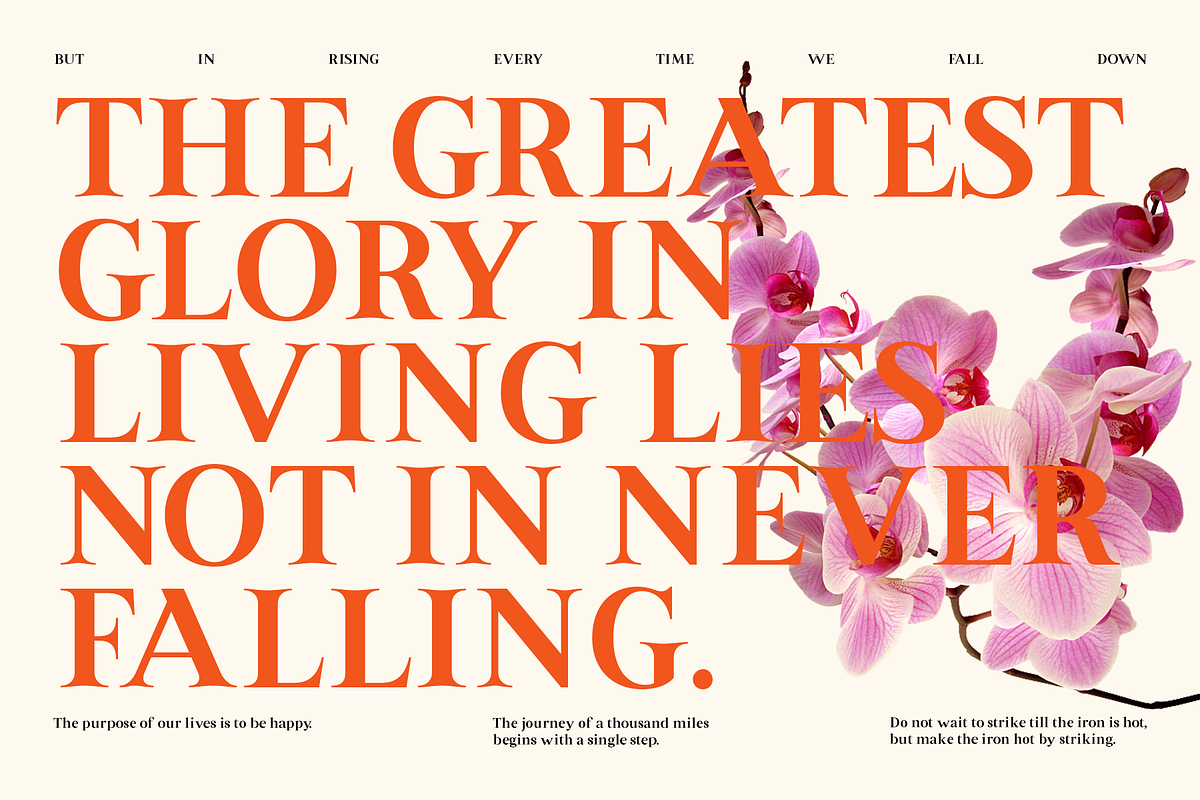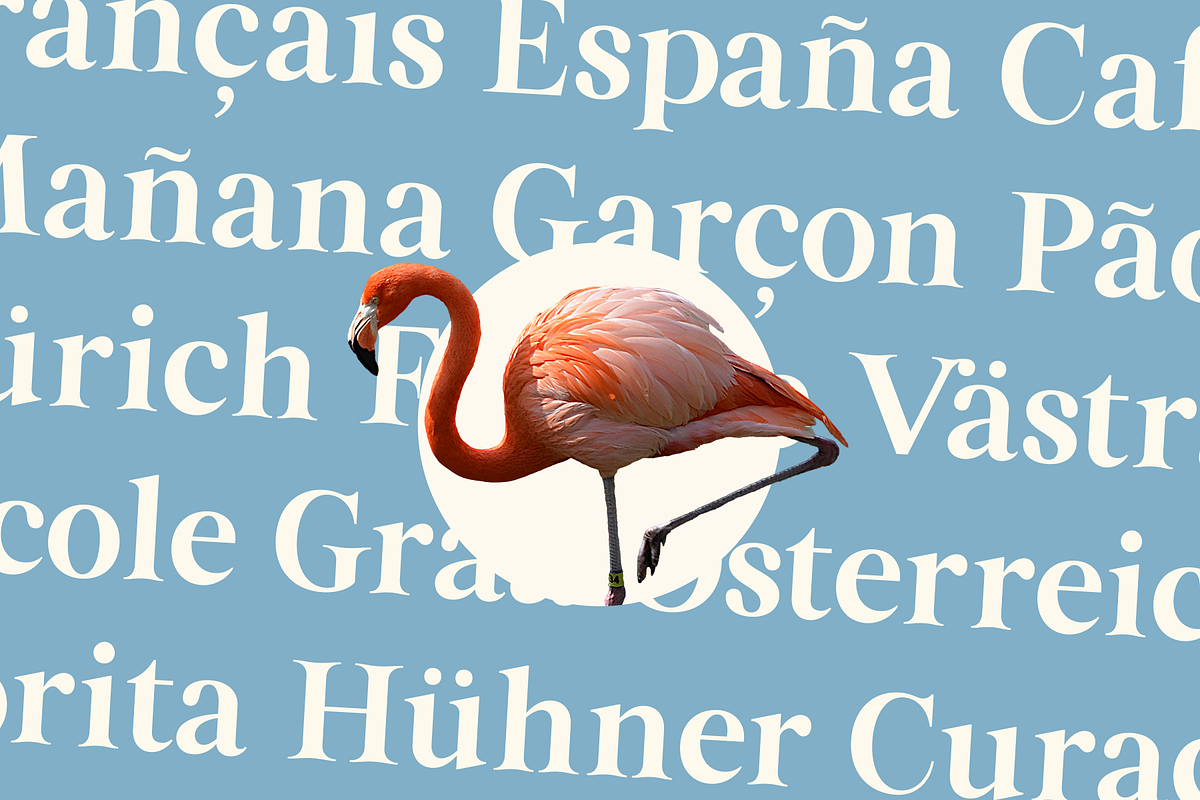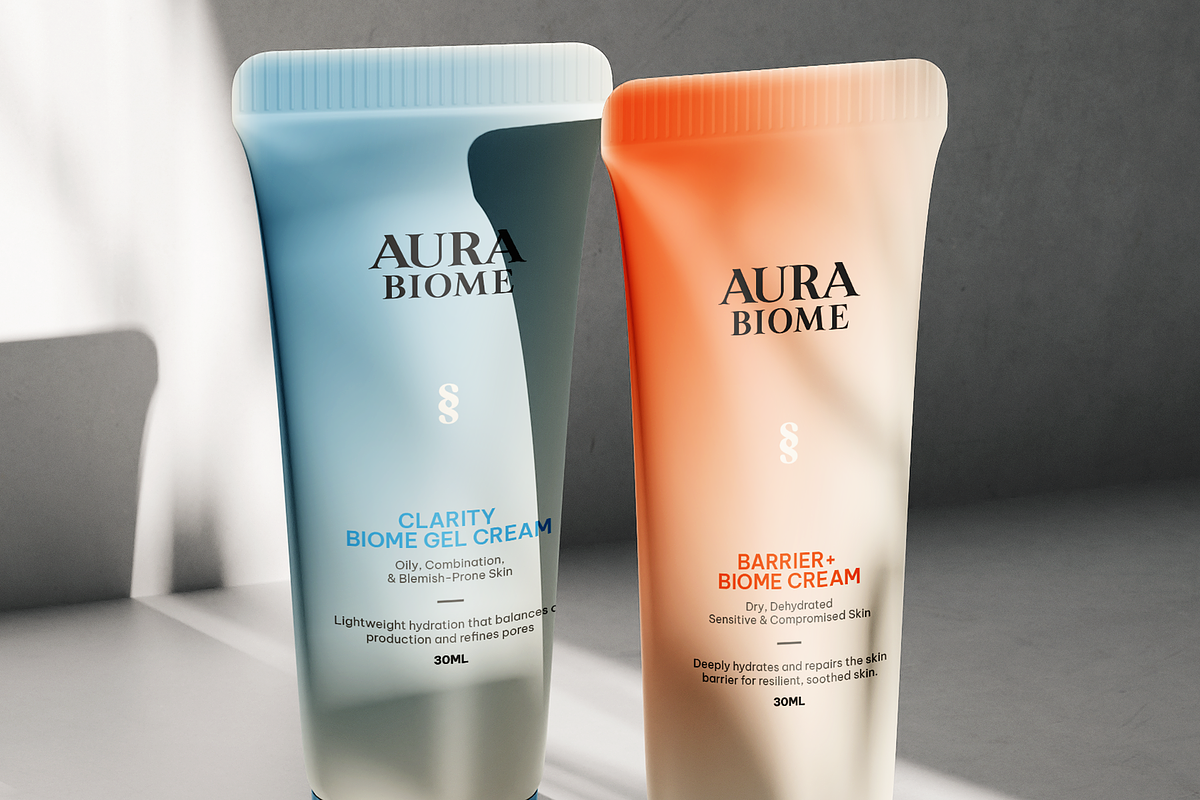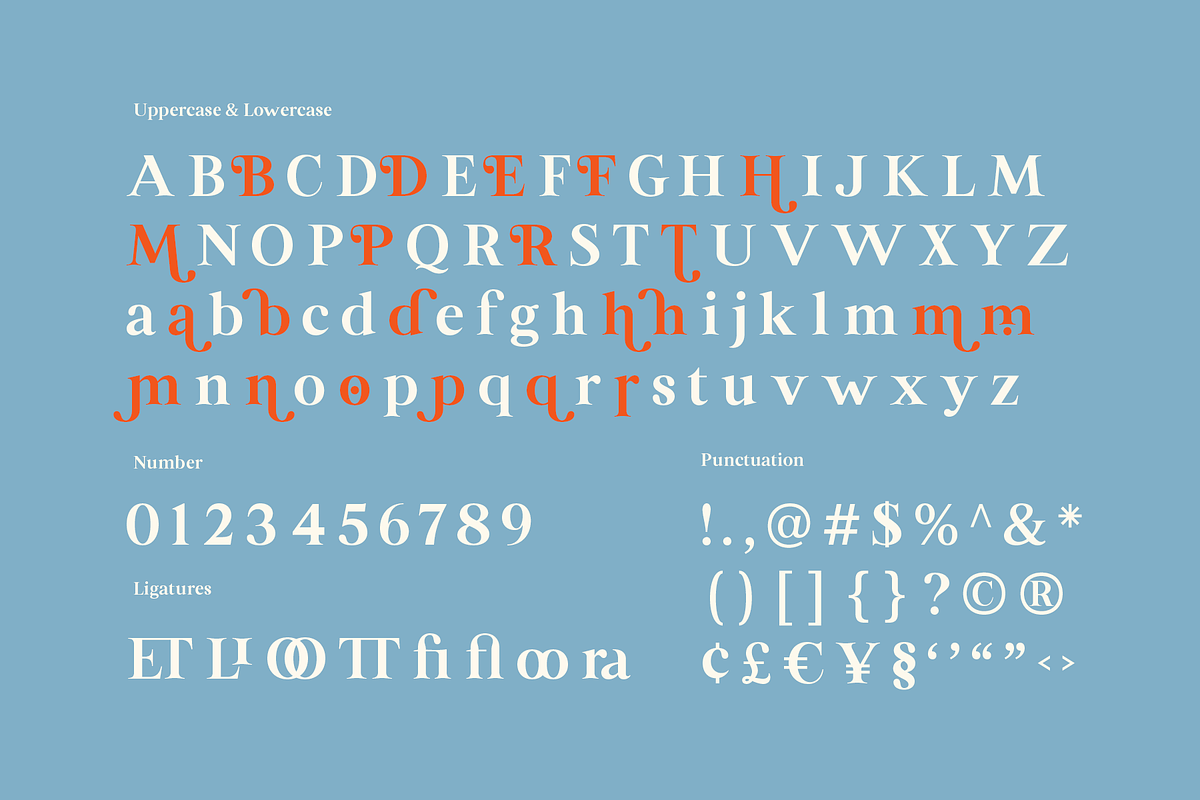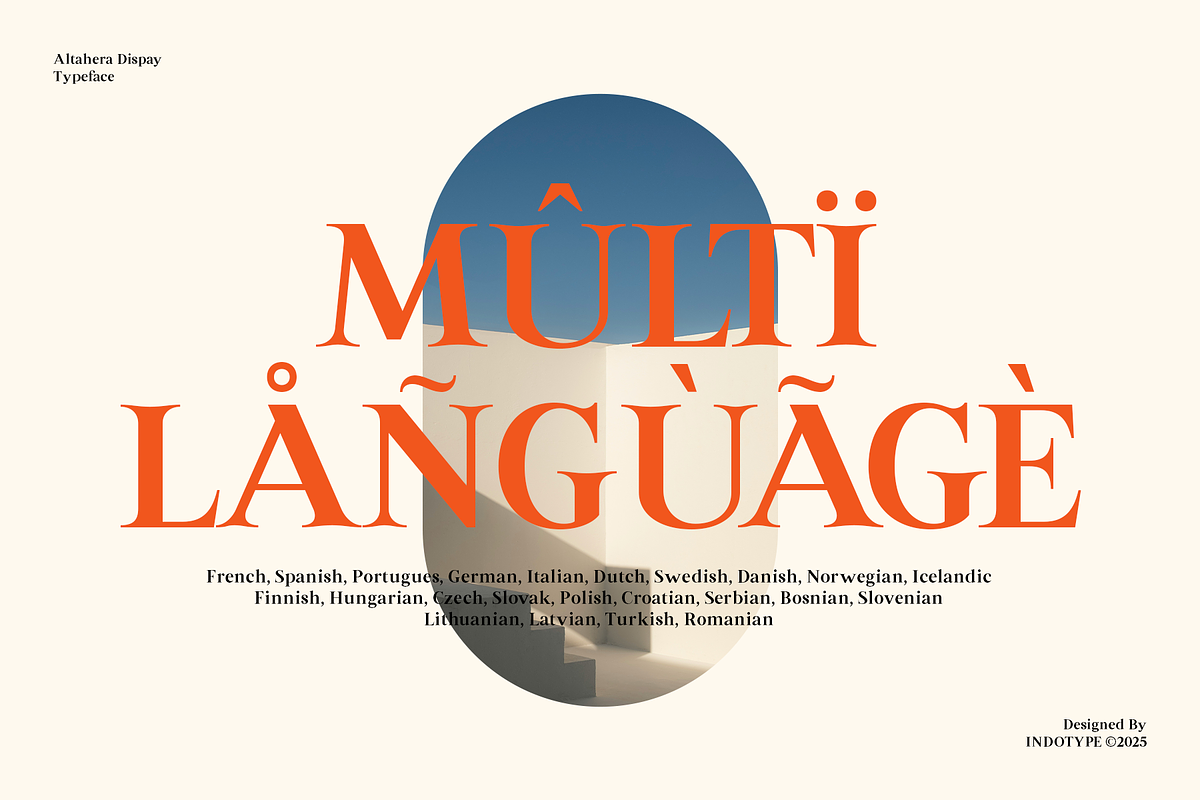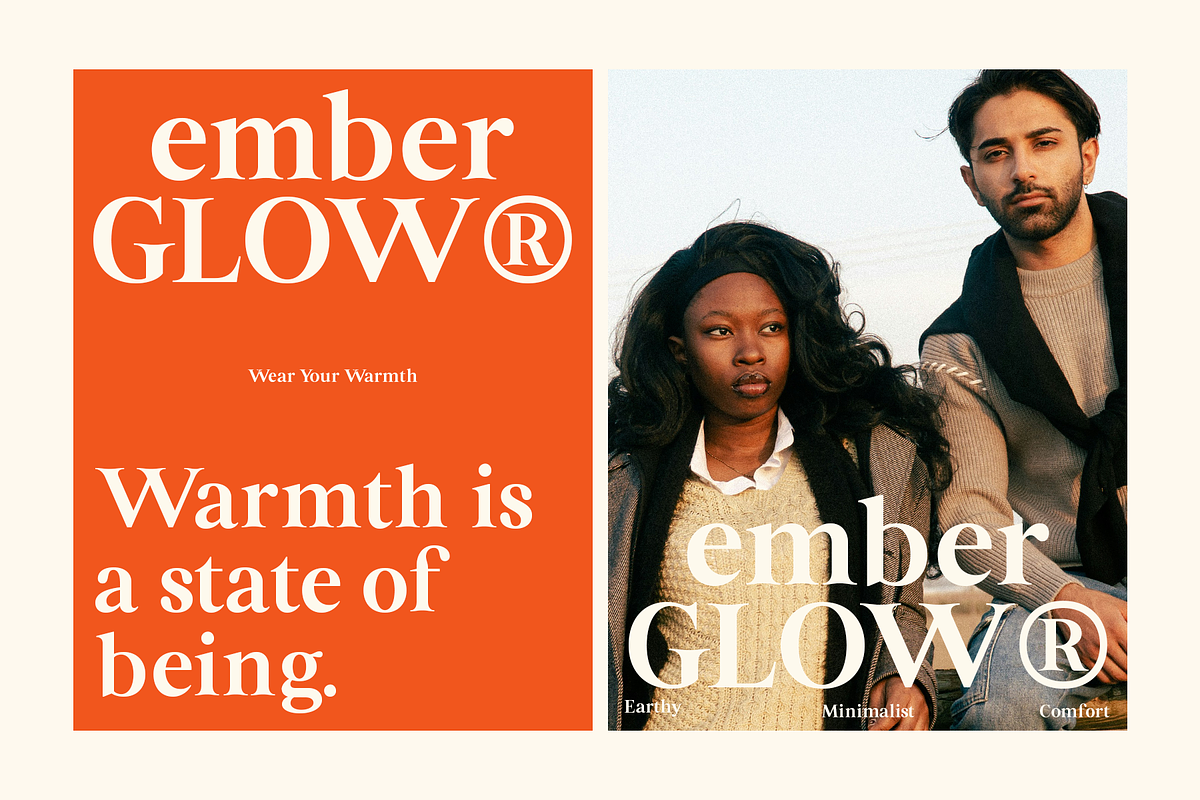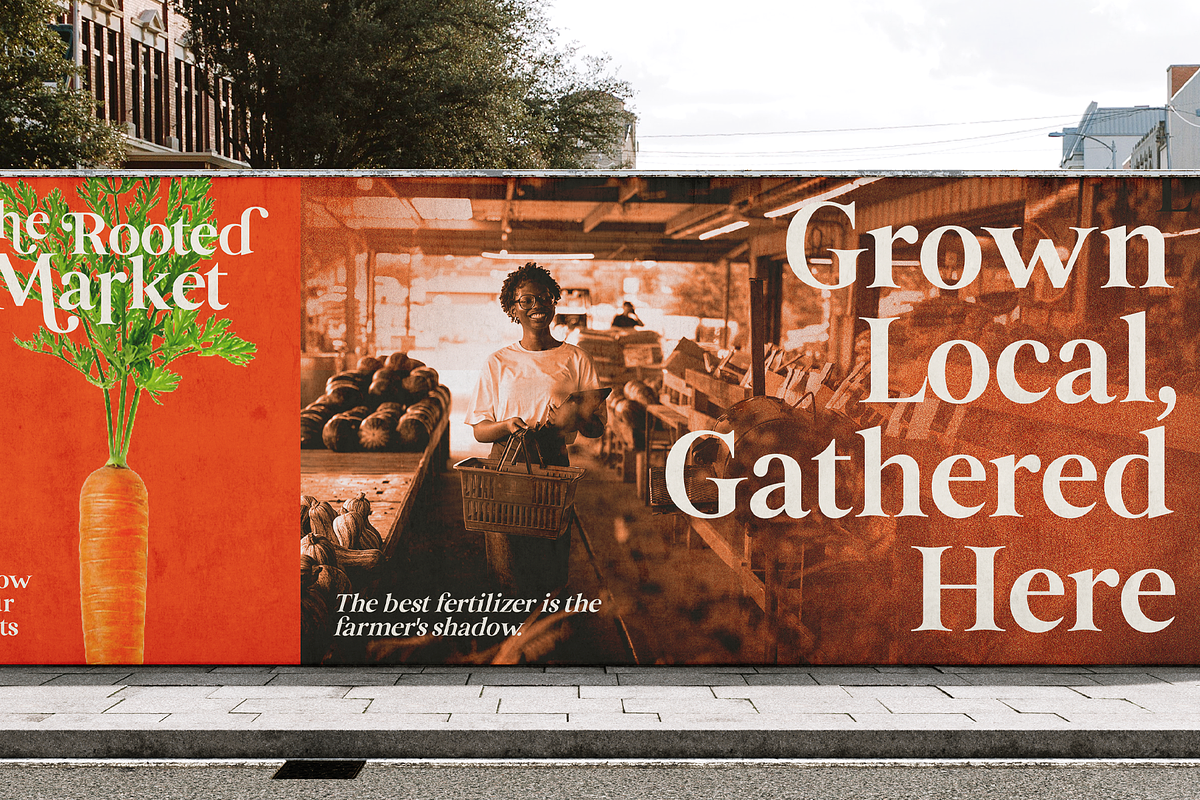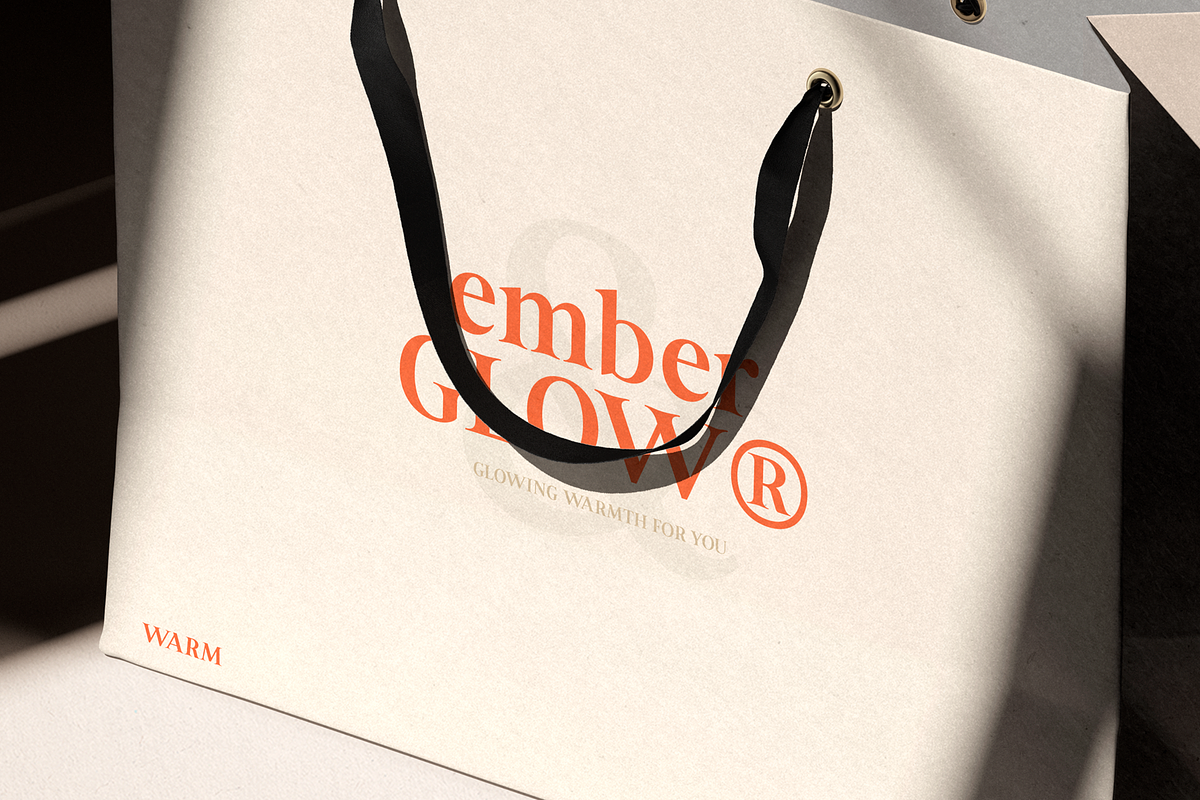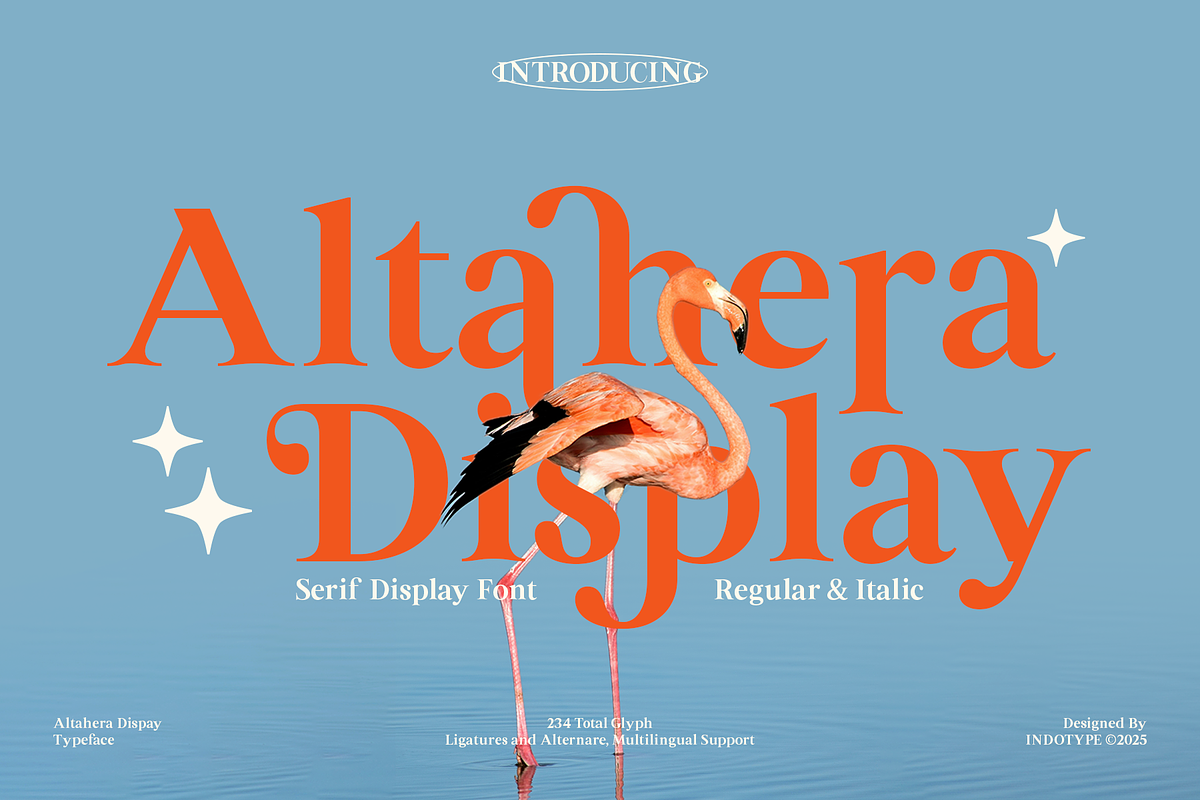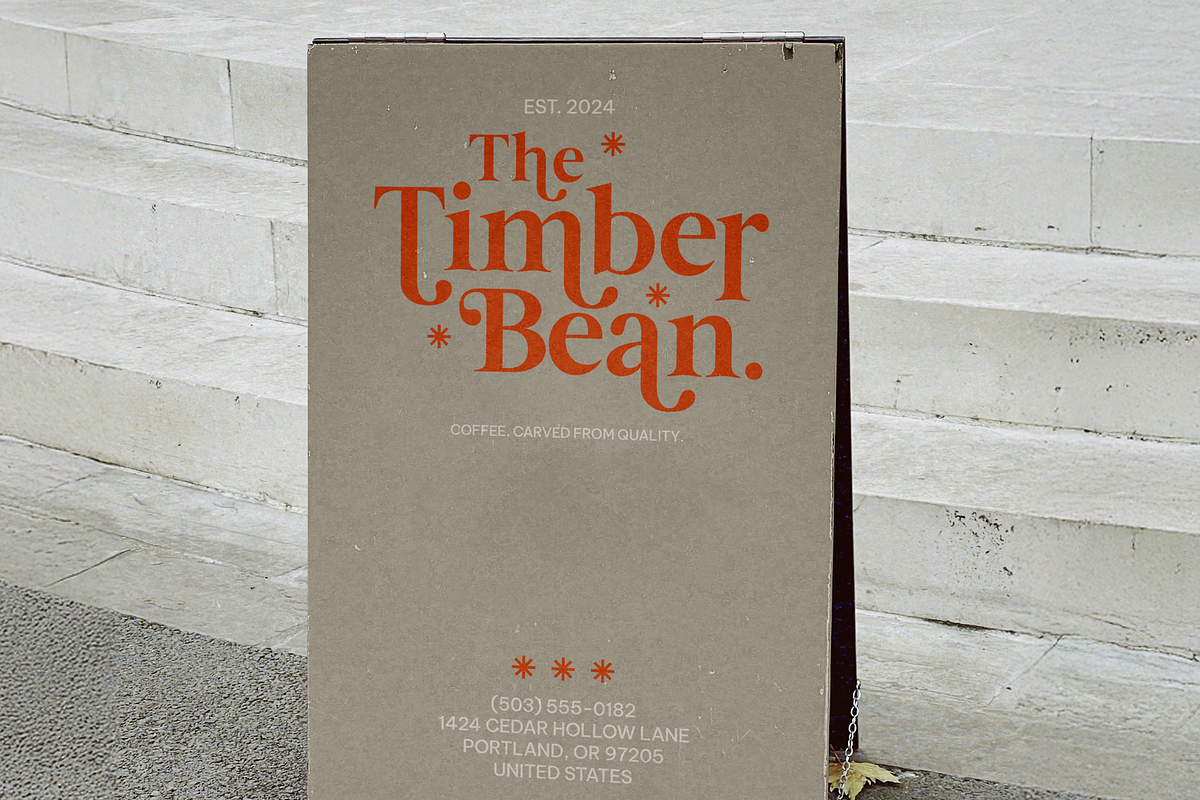
Altahera Display - Serif Display
Altahera Display is a commanding serif display typeface that masterfully balances traditional elegance with contemporary versatility. Designed with clear authority and refined detail, this font family brings classical typographic principles into the modern era with exceptional functionality. The robust letterforms feature carefully modulated serifs and balanced proportions that ensure maximum impact and readability at display sizes, making it ideal for both print and digital applications where typography must perform with grace and presence.
Altahera Display was created with the understanding that display typography must work harder than ever in today's multi-platform design environment. It bridges the gap between traditional print excellence and digital necessity, offering a typeface that maintains its character and readability whether appearing on a billboard, smartphone screen, or printed page. The design respects classical serif traditions while incorporating the clarity and versatility demanded by contemporary design practice. Every character has been optimized for visual impact at larger sizes, ensuring that Altahera Display performs with confidence across all media.